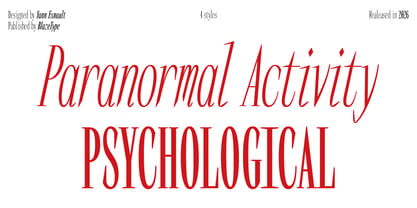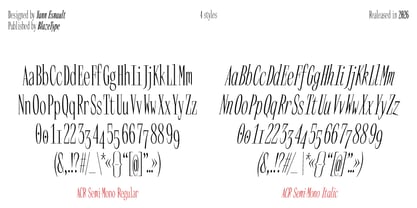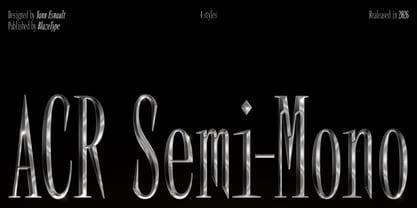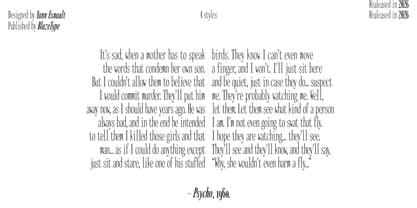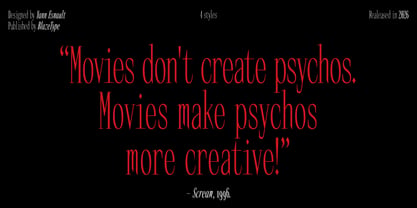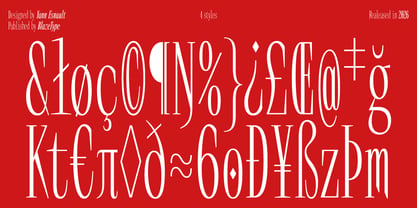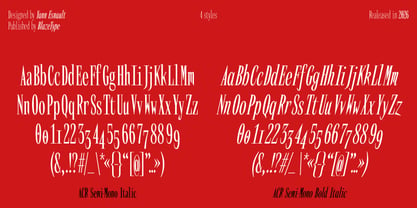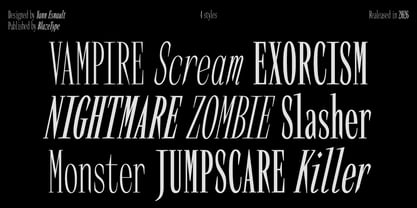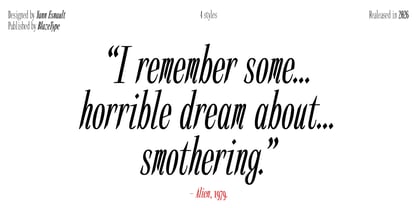
ACR Semi-Mono
by Blaze Type
The ACR Semi-Mono Font Family was designed by Yann Esnault and published by Blaze Type. ACR Semi-Mono contains 2 styles and family package options. More about this family
ACR Semi-Mono is a condensed serif typeface with subtly tapered terminals. Initially designed as a monospaced font, it has gradually evolved into a semi-mono structure, offering a balance between geometric precision and compositional flexibility.
The family is available in four styles: Regular, Bold, and their true italic. Designed specifically to bring their own rhythm, proportions, and details, they offer expressiveness and dynamism that complement the roman styles.
With its condensed proportions, character, and distinctive design, ACR Semi-Mono is primarily intended for display applications and large-size compositions. It reveals its full graphic presence in such contexts, bringing both elegance and expressiveness to layouts.
Designers: Yann Esnault
Foundry: Blaze Type